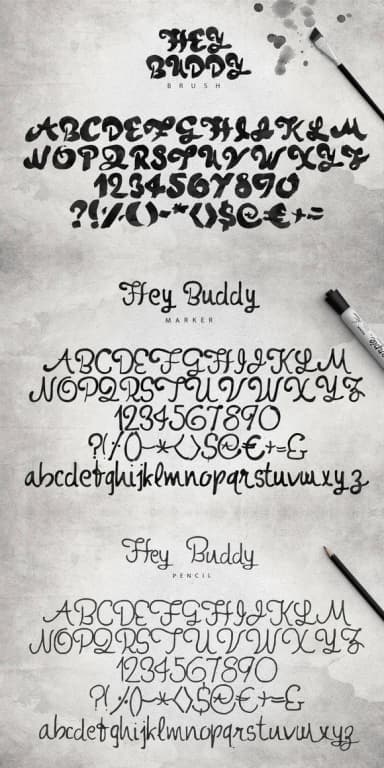
Hey Buddy Font by SmartDesigns is a brush-stroke script that pairs the warmth of hand-lettered characters with strong modern legibility. The typeface's natural pencil and brush-inspired strokes authentically capture handwriting qualities while maintaining clarity across various applications, sizes, and digital platforms. This balance between casual personality and professional functionality opens doors to diverse creative projects.
The font excels for wedding invitation suites, where couples seek typefaces that convey intimacy and personal care through custom stationery design. It works particularly well on Etsy product labels, helping artisanal brands communicate handmade quality and authenticity to discerning shoppers. Boutique skincare packaging represents another strong application, where minimalist aesthetics meet handcrafted charm. DIY craft signage projects also benefit from Hey Buddy's approachable, readable letterforms that work at both large and small scales.
Beyond these specific uses, the typeface brings genuine character to social media graphics, greeting cards, and custom vinyl projects for both professional designers and crafting enthusiasts. Its broad compatibility with major design software and crafting tools makes it accessible across different workflows and skill levels. The font's versatility means you can achieve cohesive branding across multiple touchpoints without needing secondary typefaces to complete your visual story. Get Hey Buddy Font on Creative Fabrica and bring authentic handwritten warmth to your next creative venture.
Hey Buddy Font is a script font that shines as a display or heading face. Pair it with a clean sans-serif or serif font for body text β the contrast creates a clear hierarchy while the two styles stay balanced and easy to read.
Hey Buddy Font
by SmartDesigns